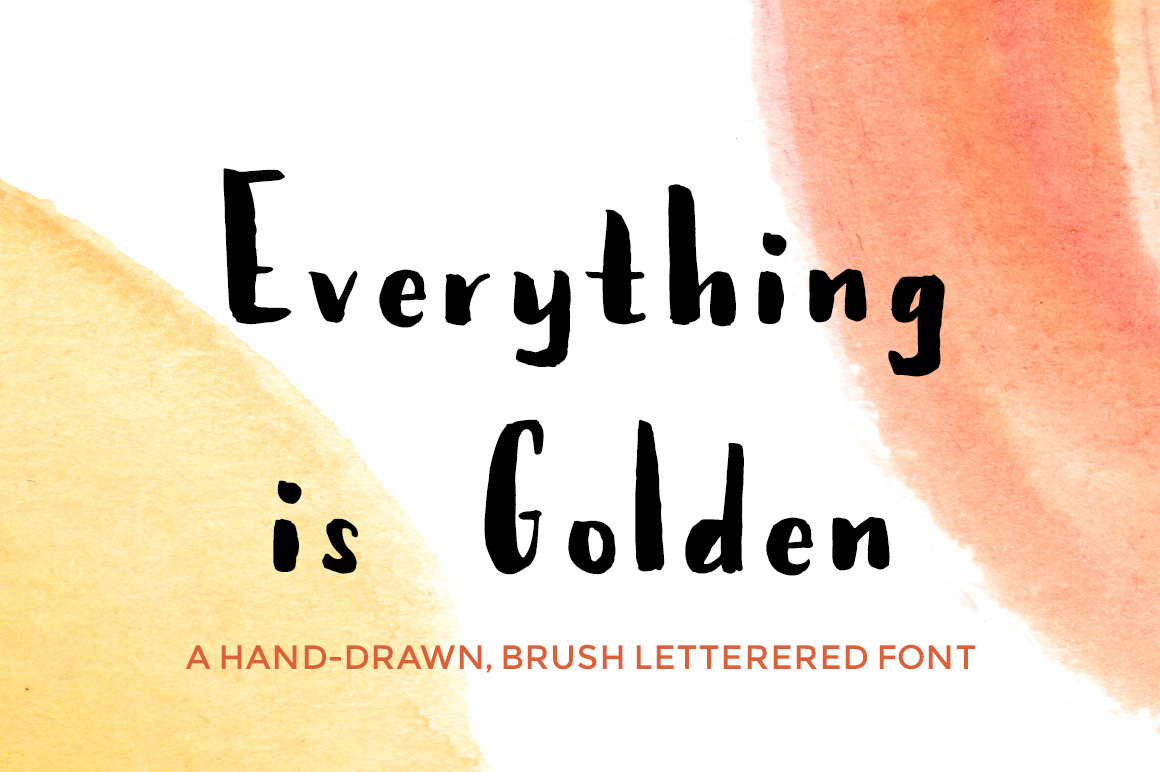
Everything Is Golden - Brush Font
The Everything Is Golden font is a perfect way to add a hand drawn, brushy lettering touch to your designs, whether you use it on the web, on a printable greeting card, in a scrapbook, or elsewhere.
The font was carefully created by hand using a thick brush marker and features a comprehensive set of glyphs including uppercase, lowercase, numeric, and symbols. The glyphs were edited to preserve a brushy quality.
Add this quirky hand lettered font to your font repertoire and use it for any number of occasions.